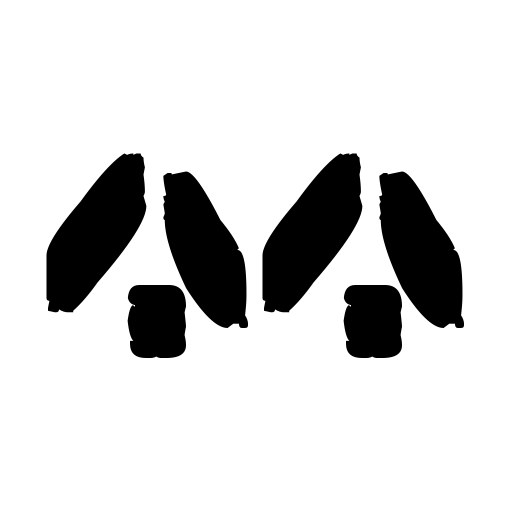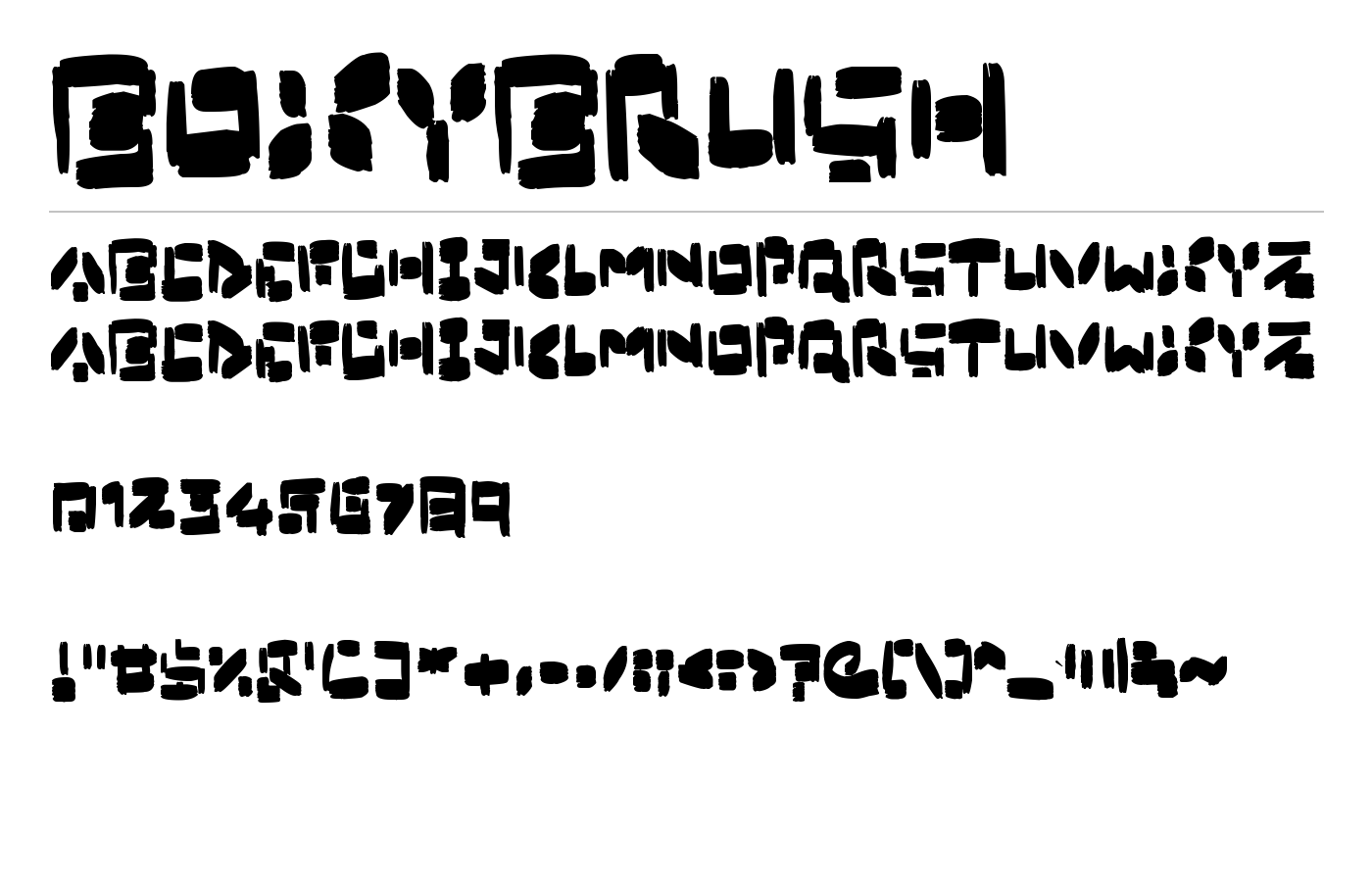
Boxybrush is a bold, condensed display font featuring rough, blocky brush strokes that give it a raw, urban feel. Its all-caps style with irregular edges creates a strong visual impact, perfect for eye-catching headlines, posters, and edgy branding that seek a distinct, hand-crafted look. This font works well where a bold, artistic statement is needed.
Boxybrush Font